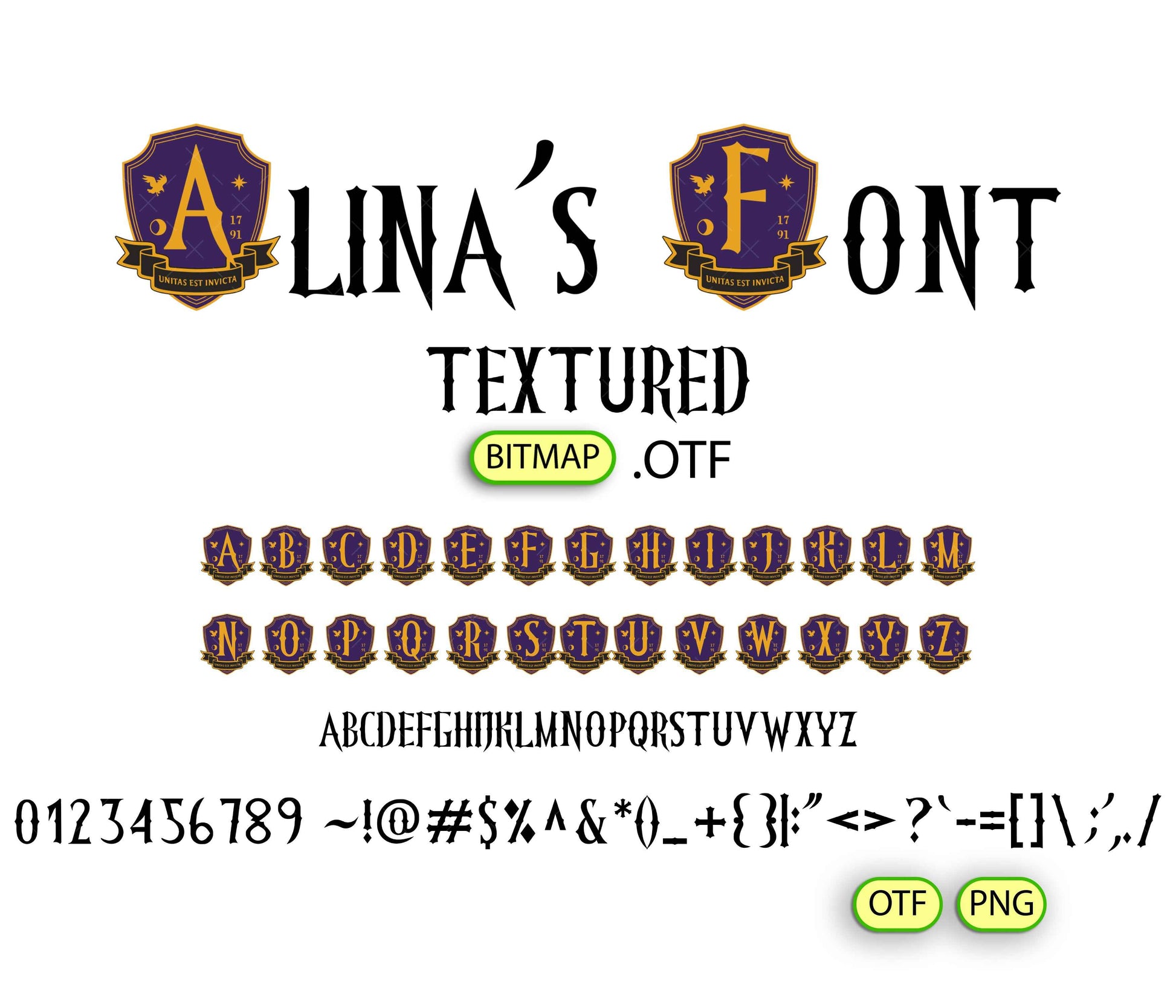
Gothic Heritage Font Textured
Gothic Heritage Textured Font: A Gothic Tapestry Unveiled
Embark on a gothic adventure with the Gothic Heritage Textured Font. Each character, adorned with patterns inspired by a unique flair, encapsulates the mysterious charm of gothic heritage. This font welcomes artisans to a realm of gothic creativity, enhancing cake toppers, birthday invitations, and distinctive t-shirt designs with a touch of the gothic mystique.
The Gothic Heritage Textured Font is your conduit to crafting projects that resonate with the iconic allure, encapsulating a narrative of eerie elegance in every design.